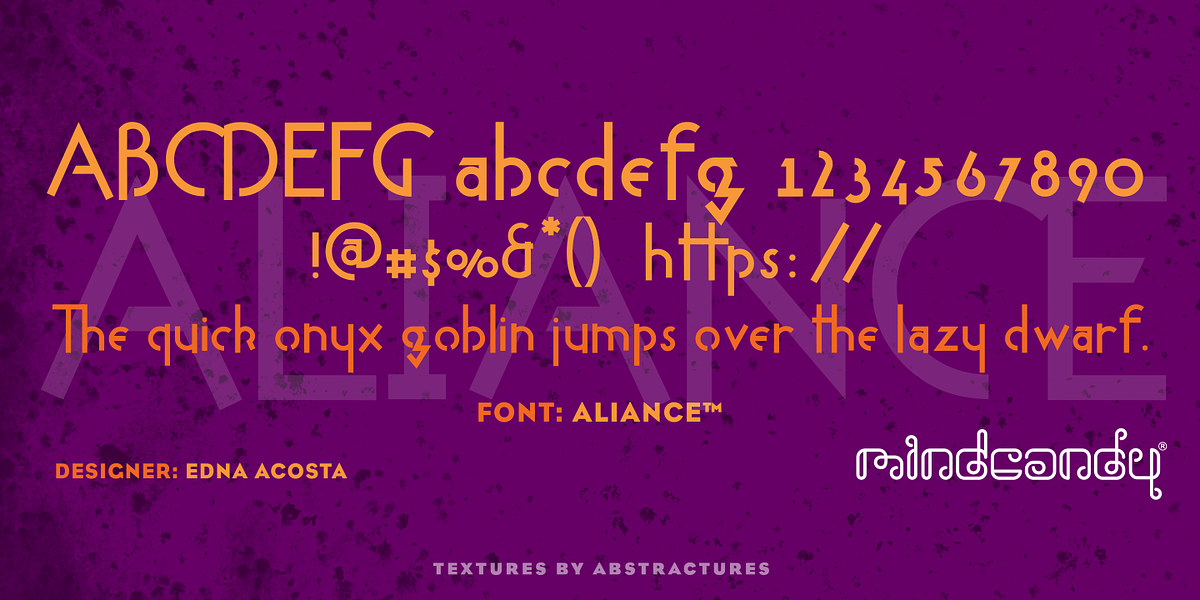
Aliance™
This display font, designed by Edna Acosta, is characterized as a novelty sans serif. Its whimsical and playful nature makes it suitable for headlines, branding projects, and packaging.